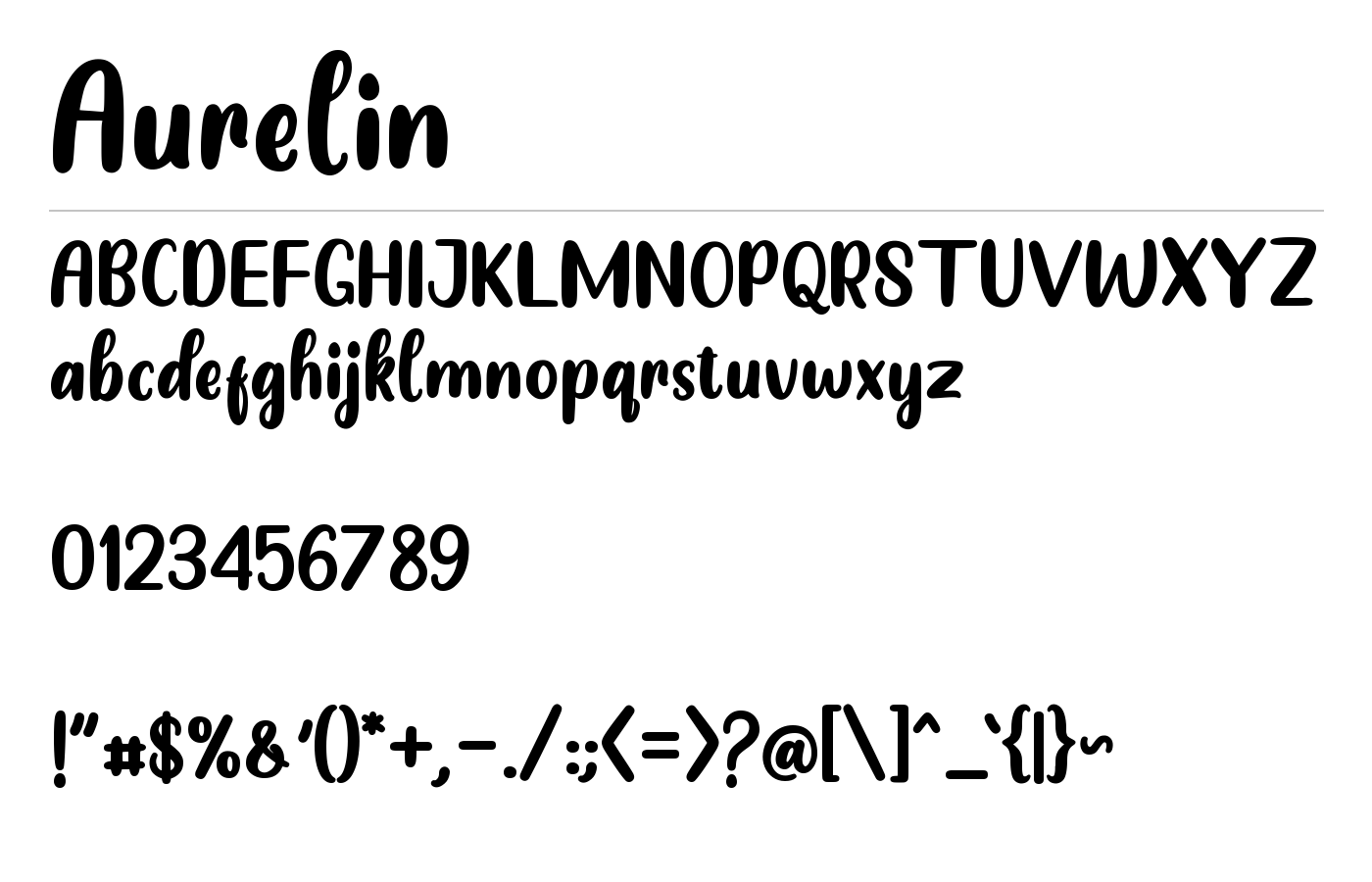
Aurelin is a playful and friendly sans serif font with rounded, slightly condensed letterforms and smooth strokes that evoke a handwritten feel. Its casual yet legible style makes it perfect for creative projects, branding, and headlines where a fun and approachable personality is desired. This font works well in packaging, children’s materials, and informal editorial design due to its warm and inviting character.
Aurelin Font